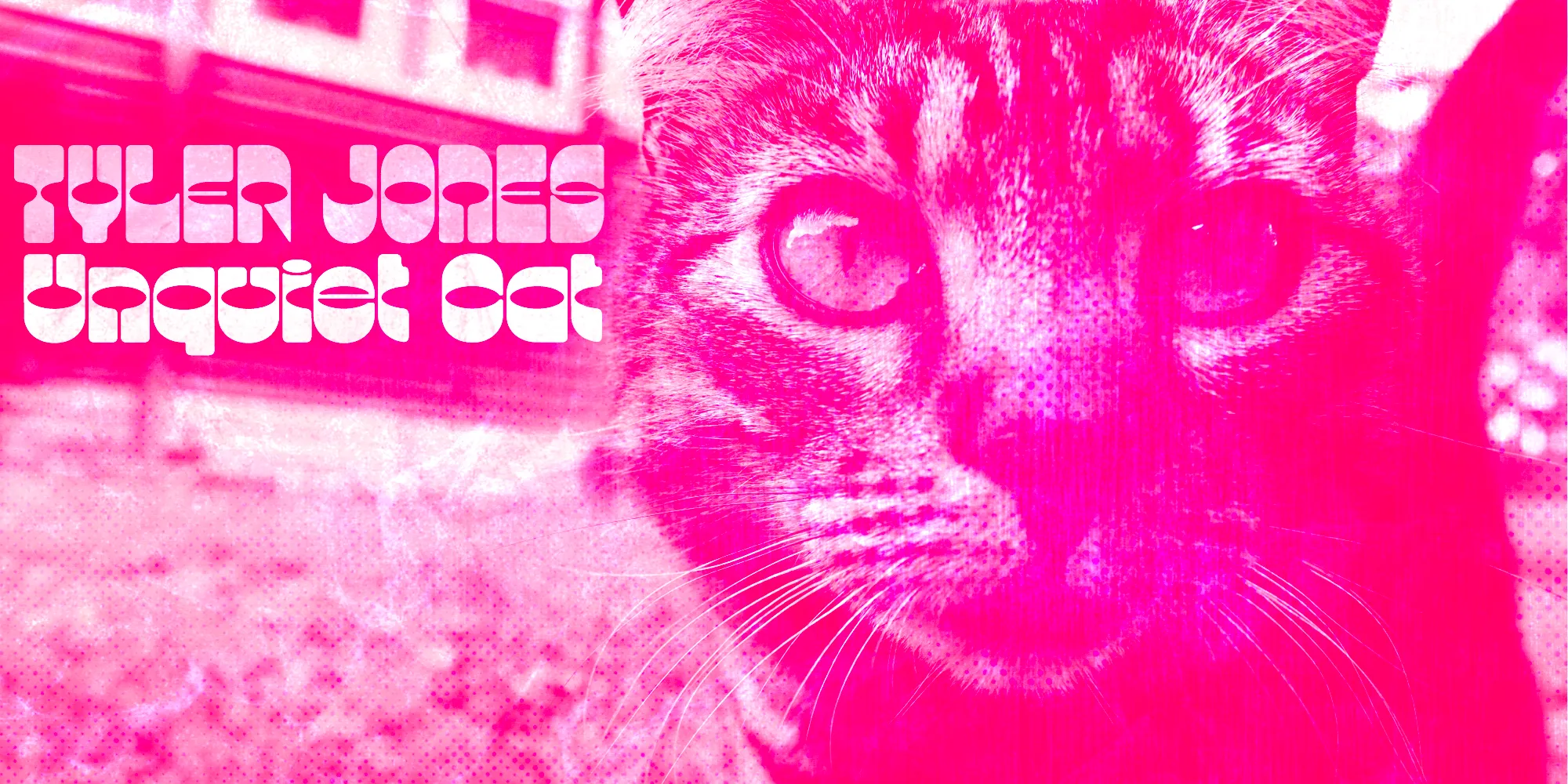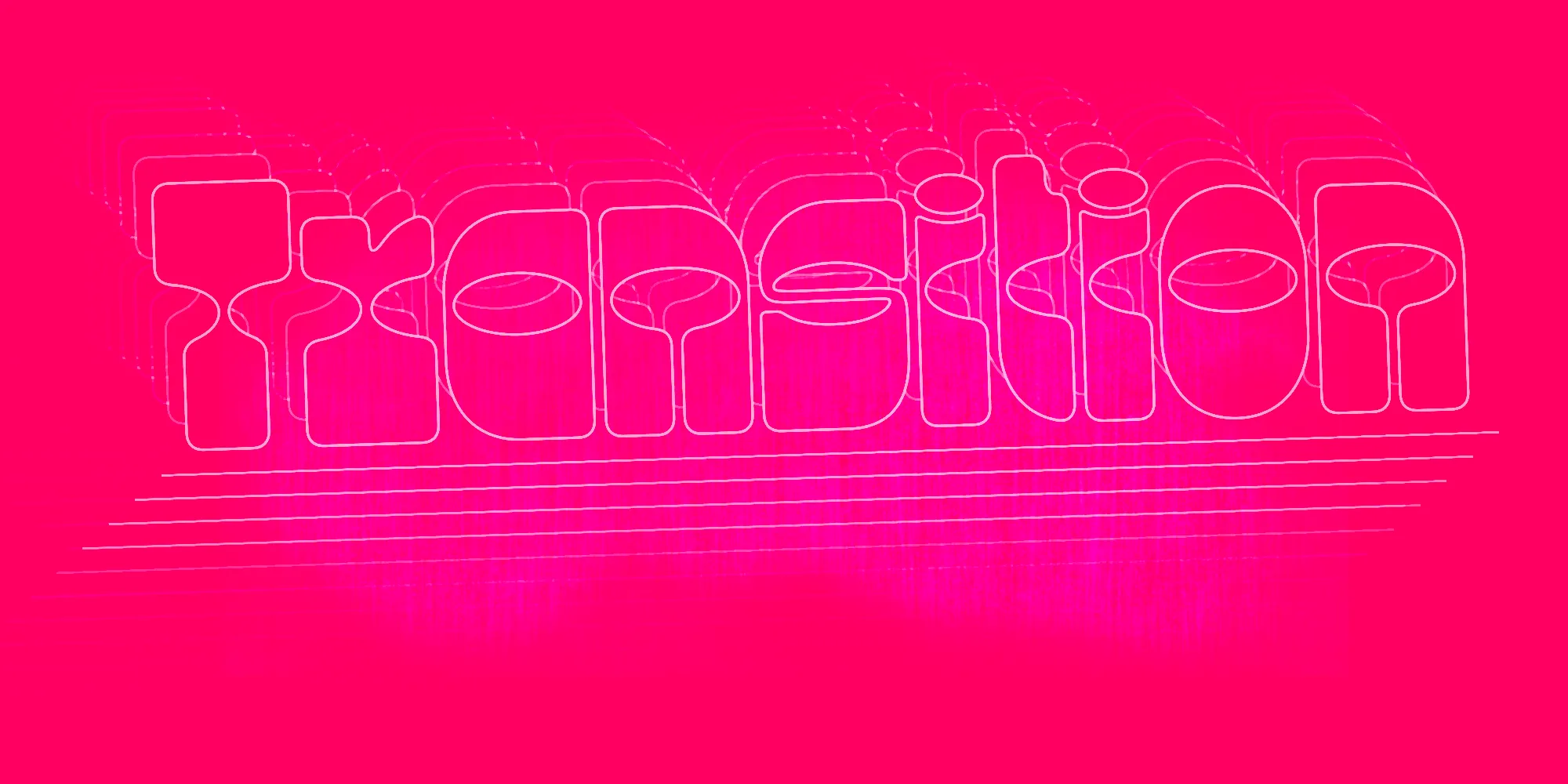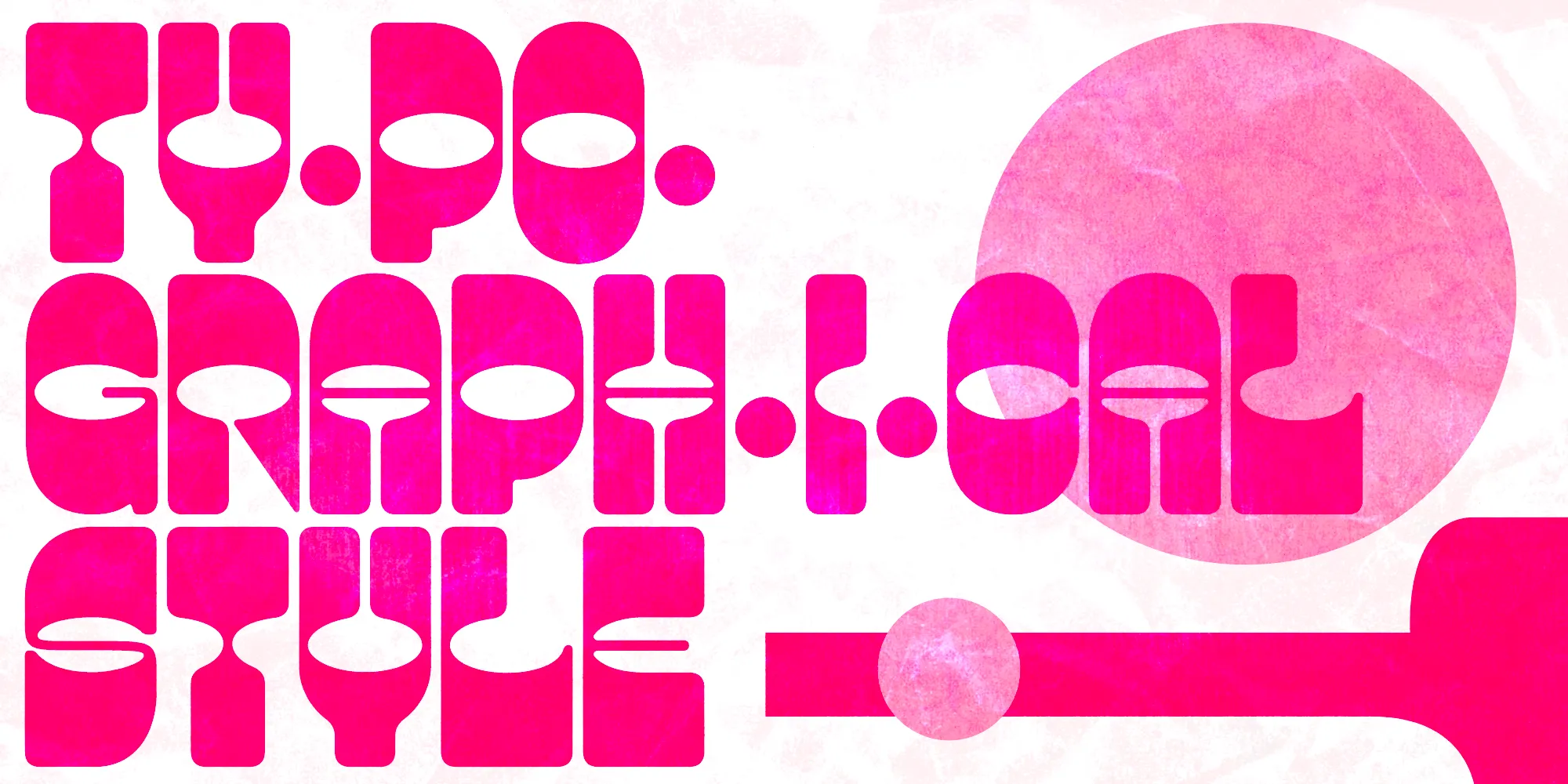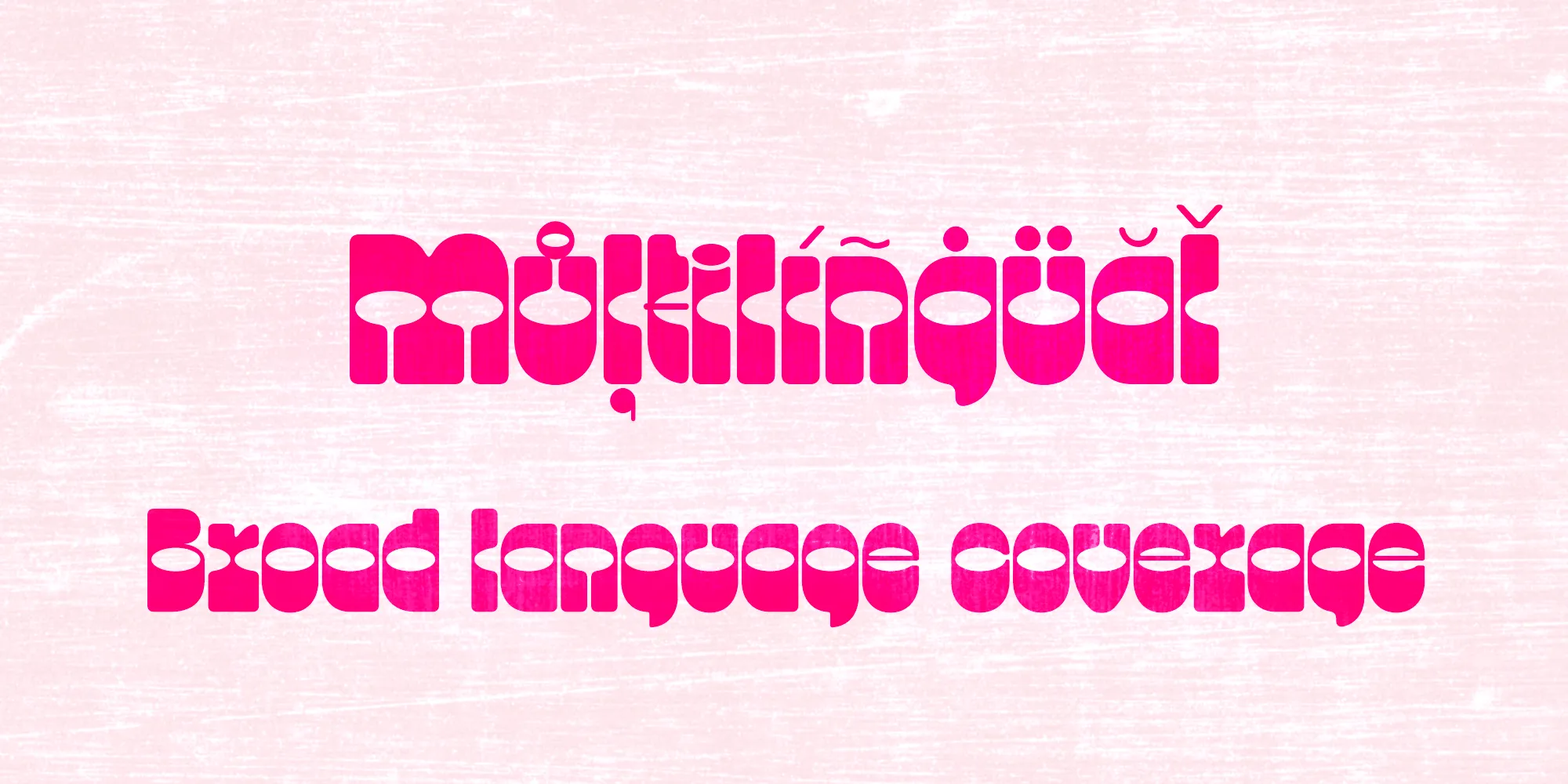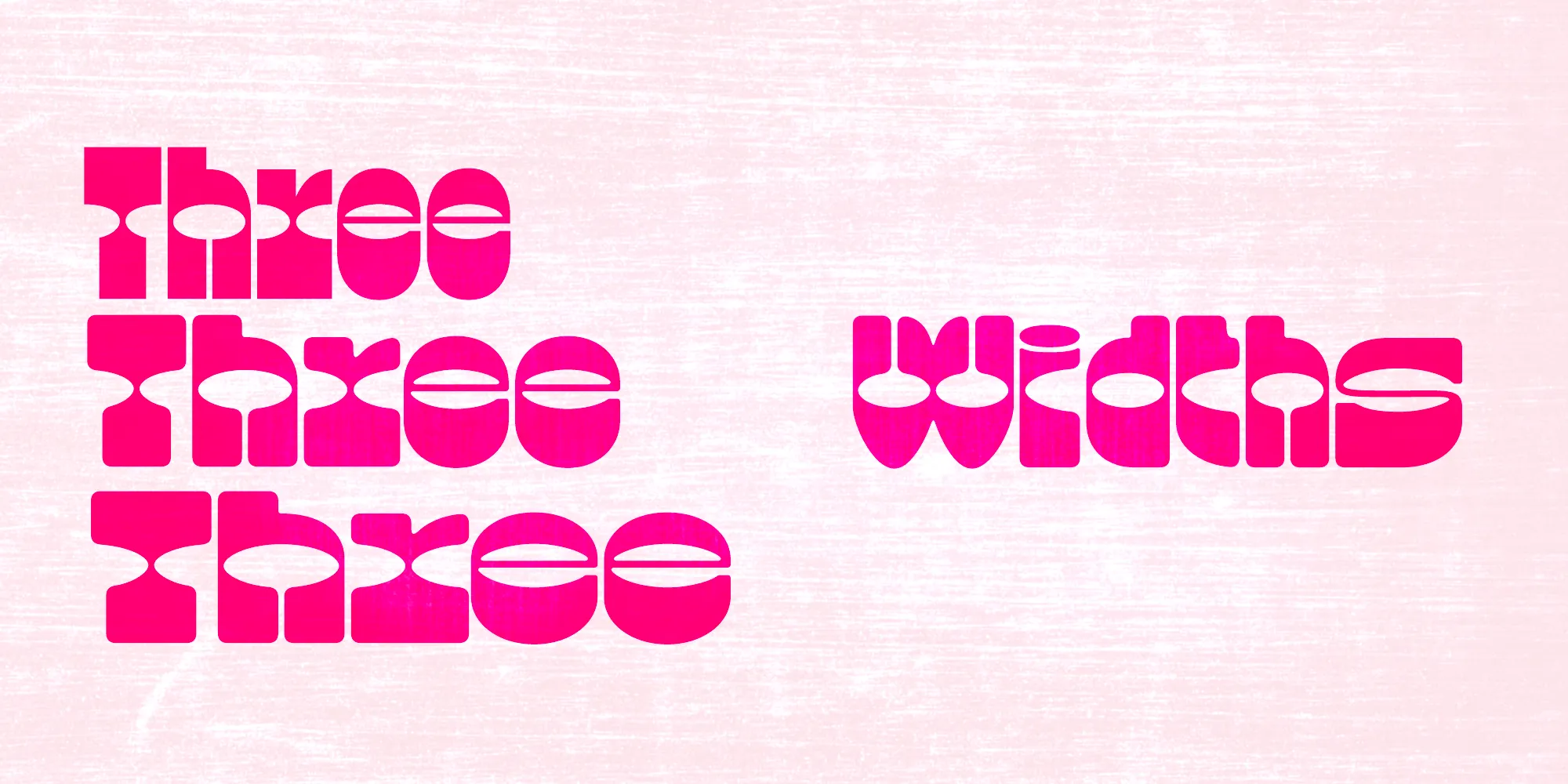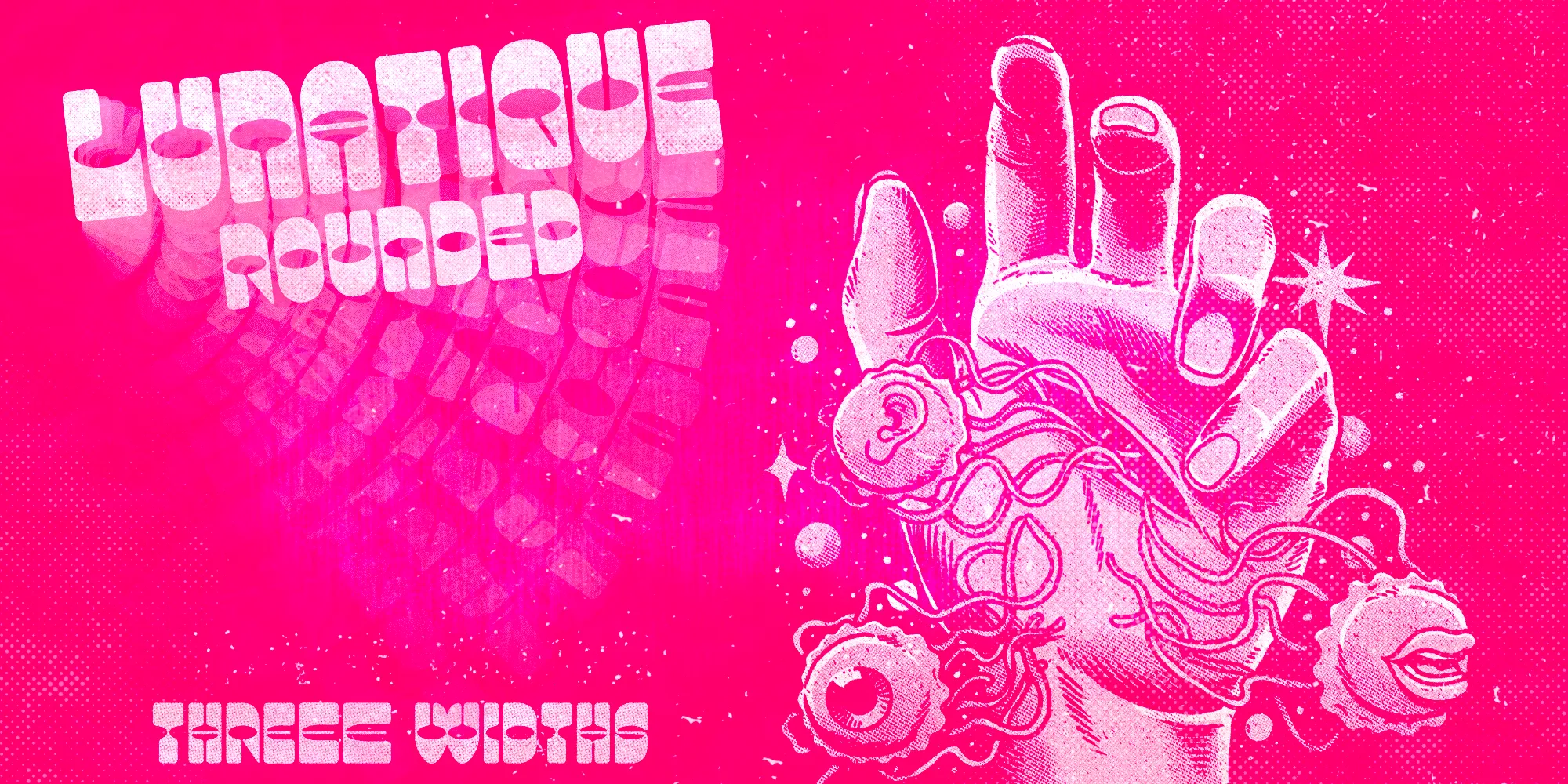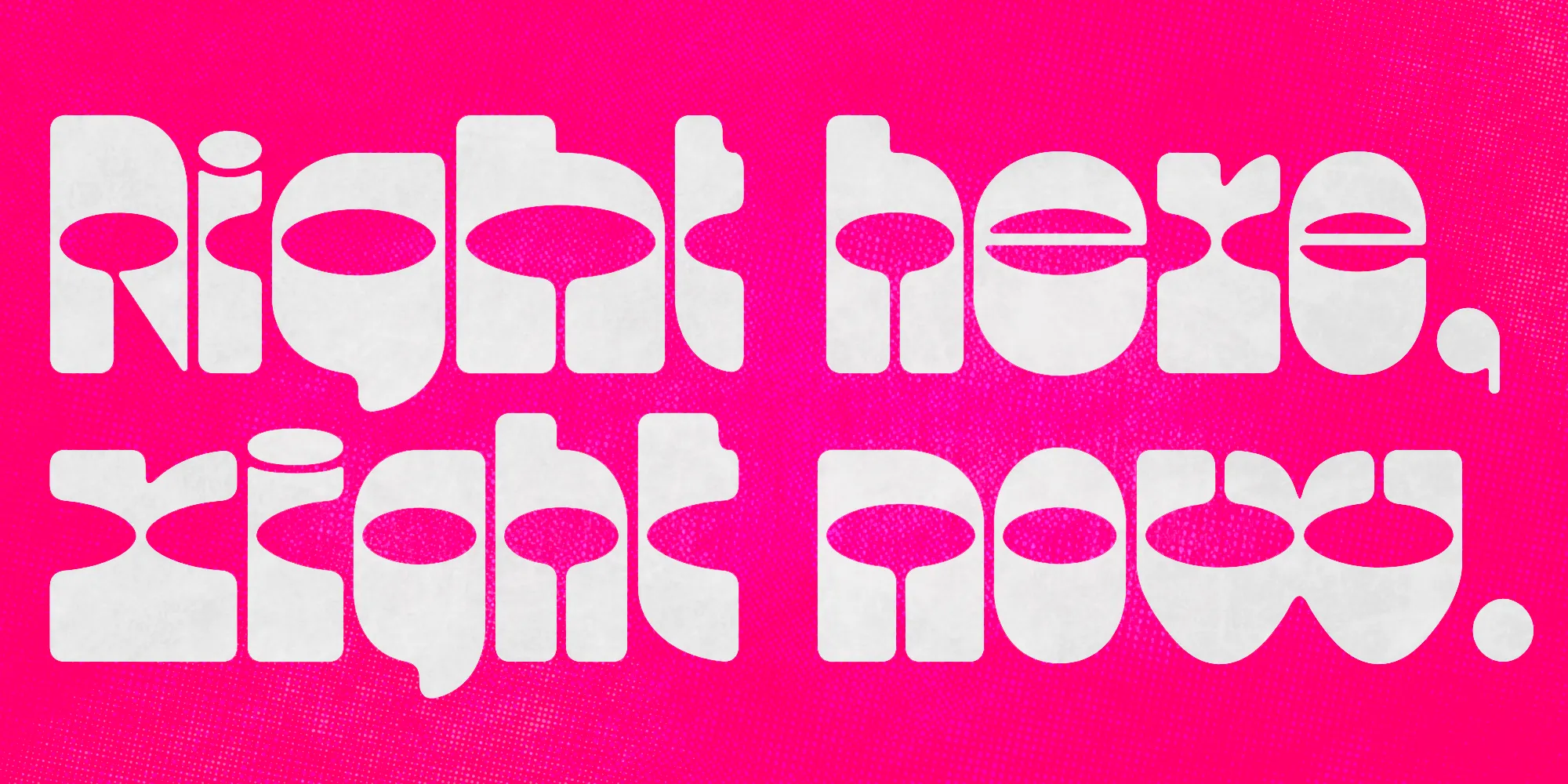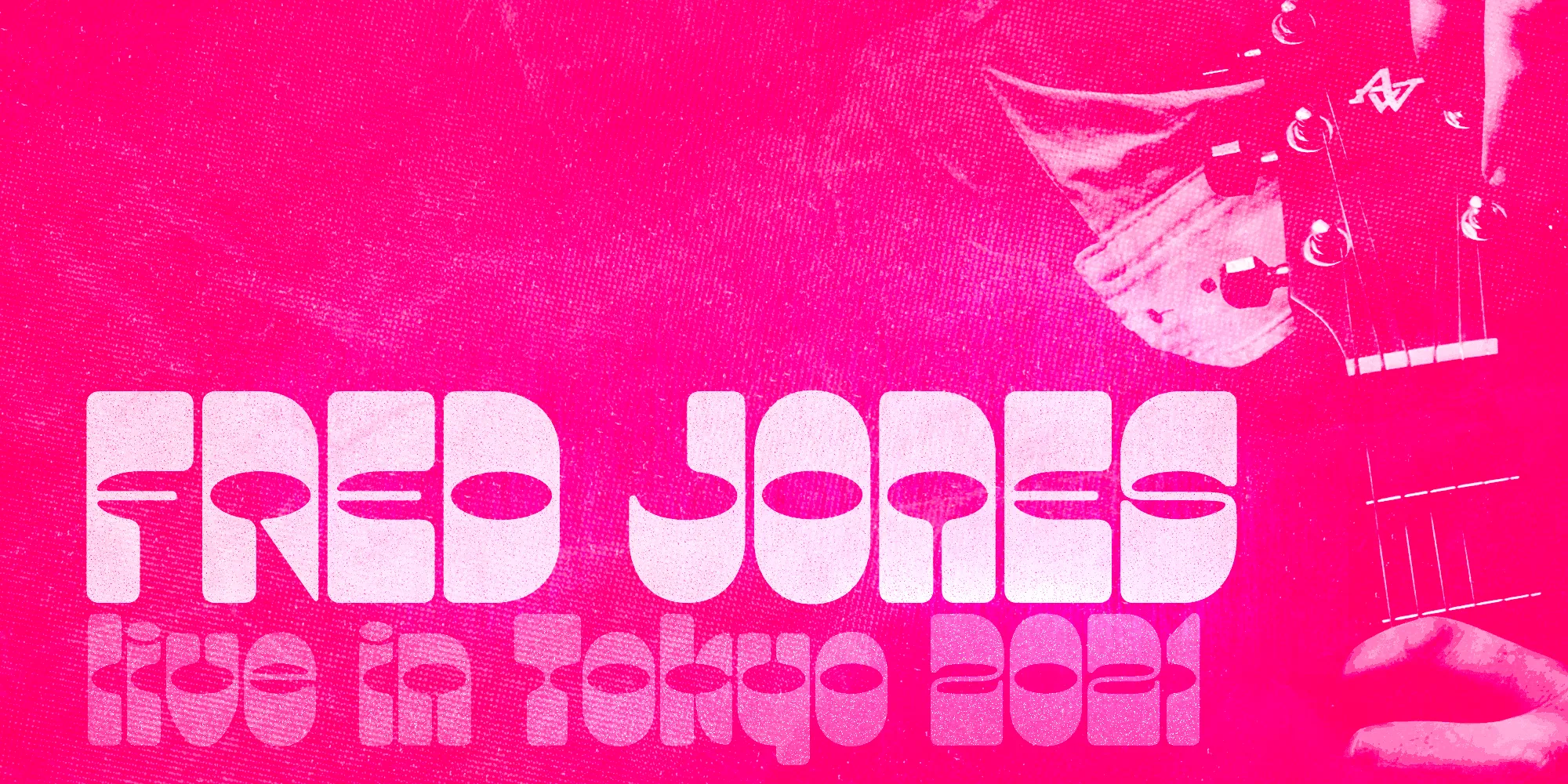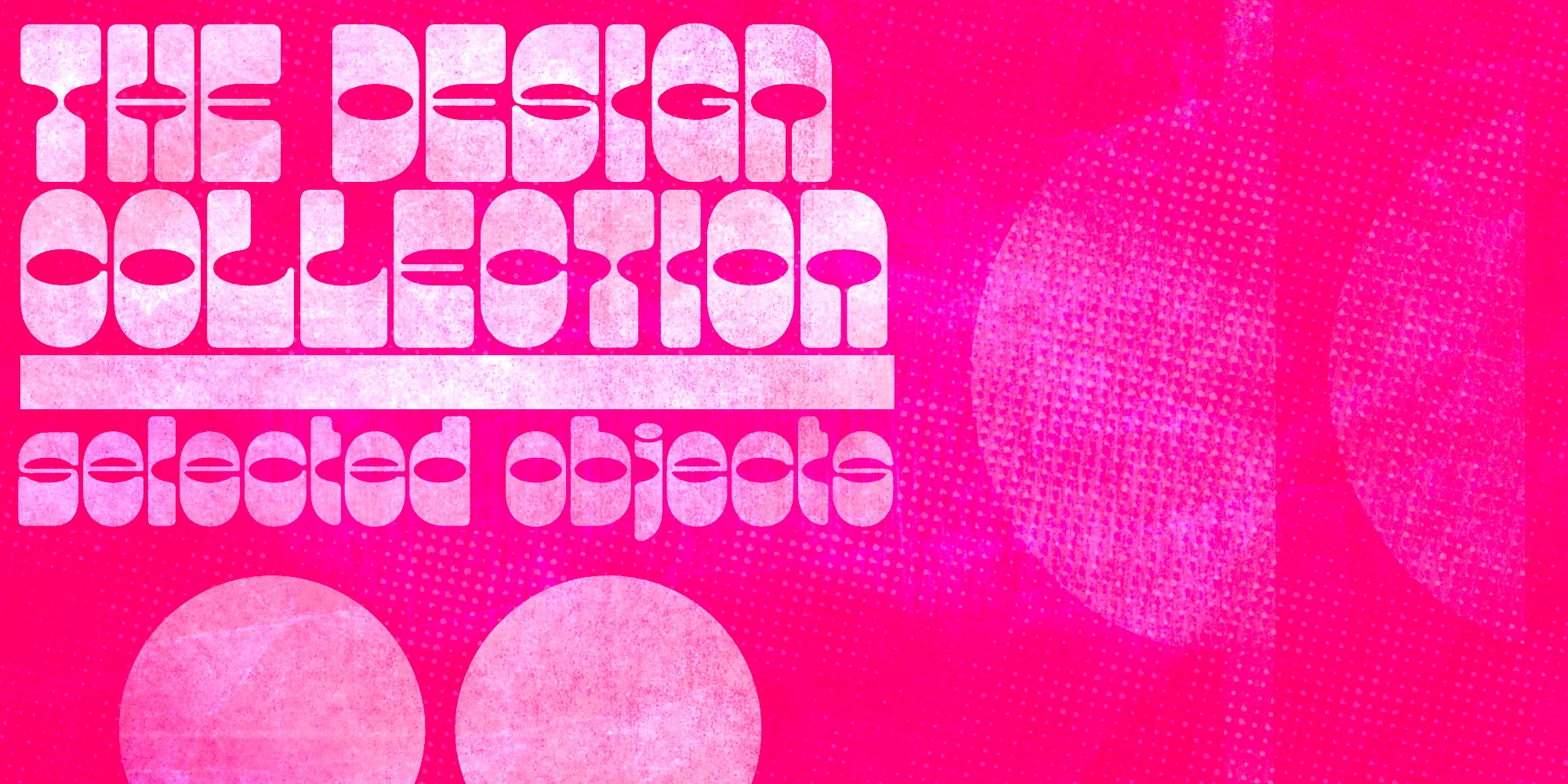
Lunatique Rounded Fonts
Lunatique Rounded
Lunatique Rounded — a softer version of Lunatique — is a highly decorative typeface inspired by the Lucky typeface, designed in 1972 by André Pless for the Mecanorma Permanent Type Contest. The style was later released as Letterpress transfer sheets. These digital versions will be way easier to use. Lunatique is available in three widths, with a few alternates, too. Well-suited for packaging, album covers, posters, book jackets, and anything that calls for vintage charm with a modern edge.
- Stylistic Alternates